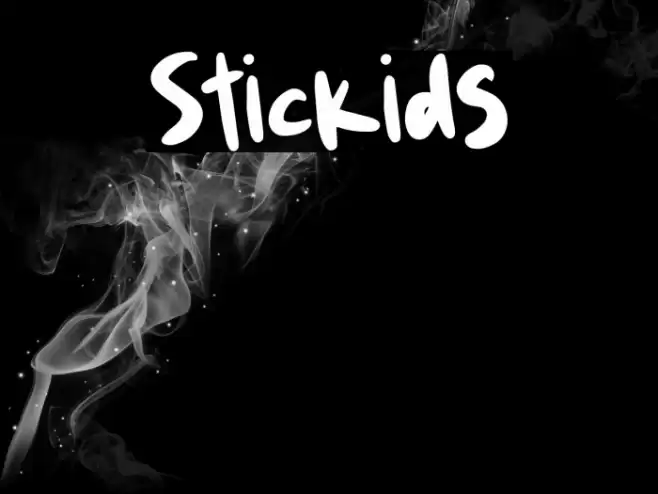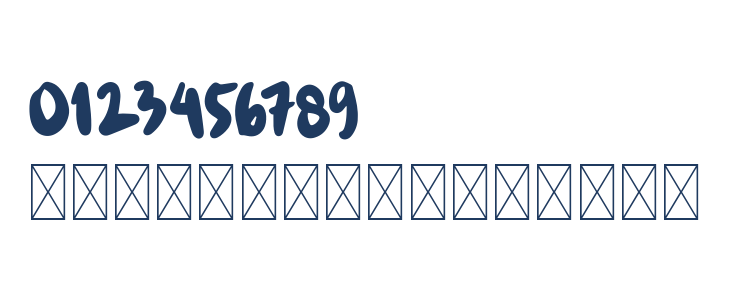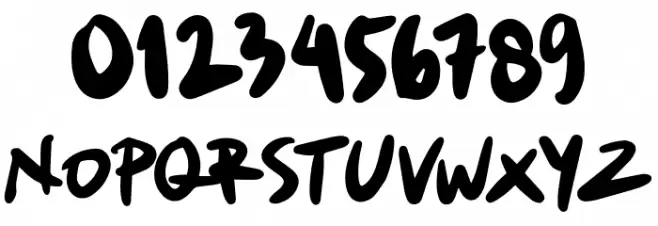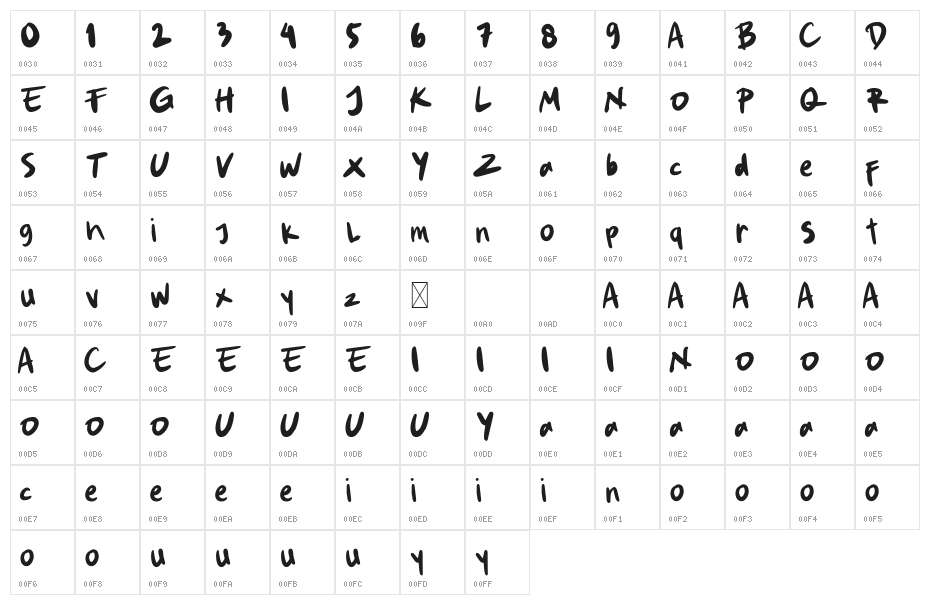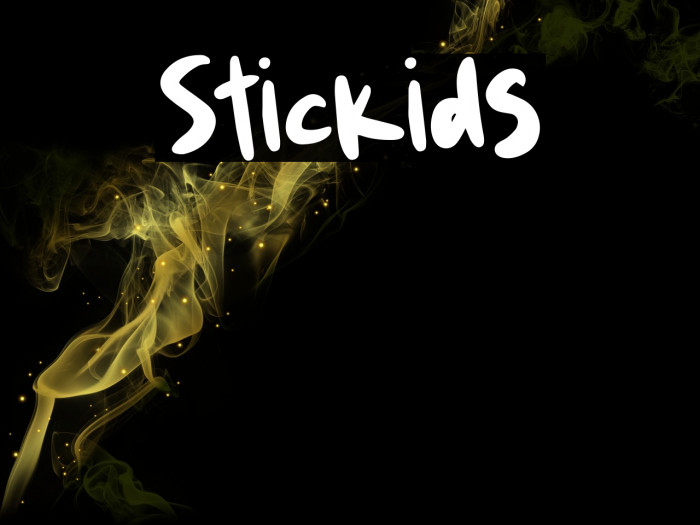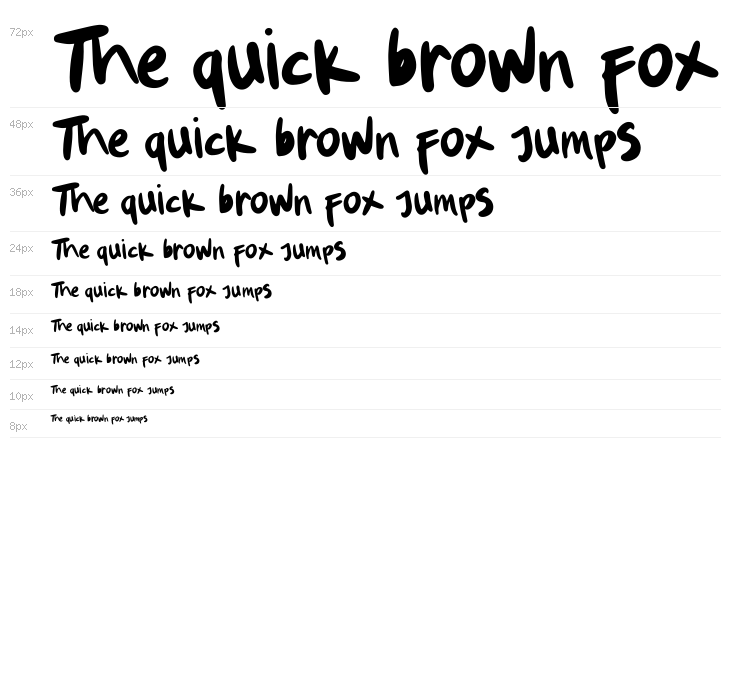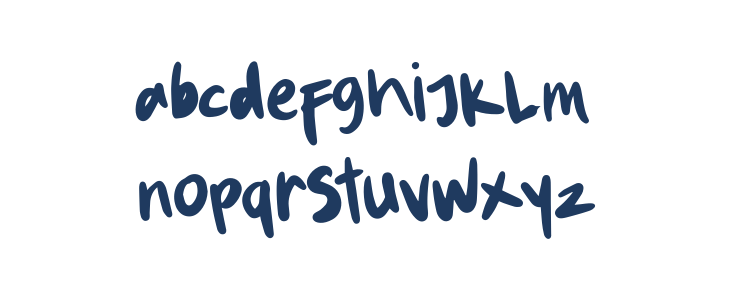
Stickids Font
Stickids Description
This font features a playful and bold handwritten style, characterized by its thick strokes and slightly irregular letterforms. The uppercase and lowercase letters maintain a consistent flow, giving it a casual and friendly appearance. The numbers are equally bold, matching the overall aesthetic of the alphabet. The special characters are crafted with the same playful touch, making them suitable for informal and creative projects. The font's energetic style is perfect for designs that require a personal and approachable feel.
A bold, playful handwritten font with thick strokes and a casual style from Cartoon fonts.
- Proposed Projects: Ideal for children's books, playful branding, casual invitations, and social media graphics.
- Overall Style: Playful
- Use Case: Headlines, Logos, Informal Text